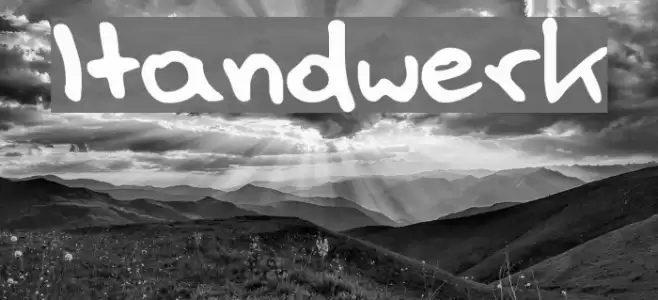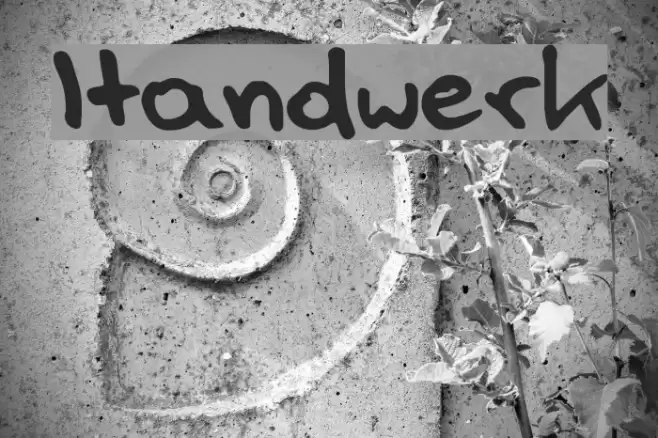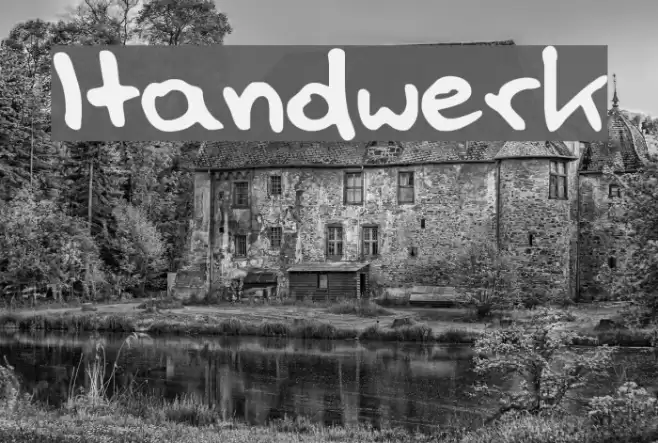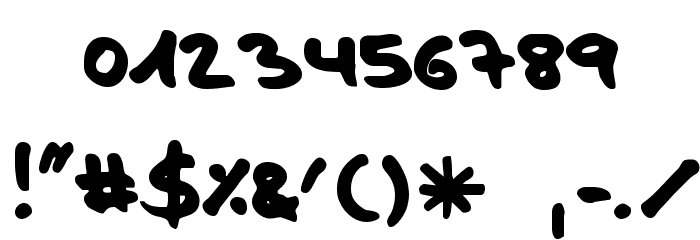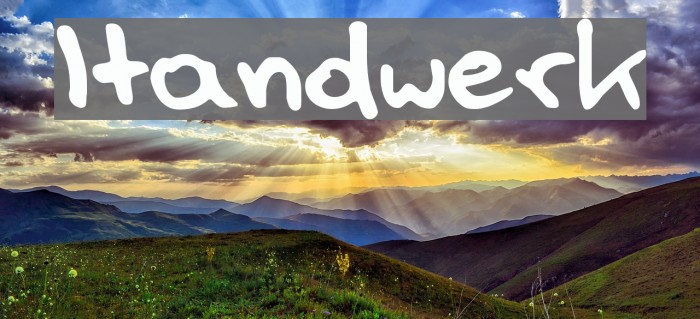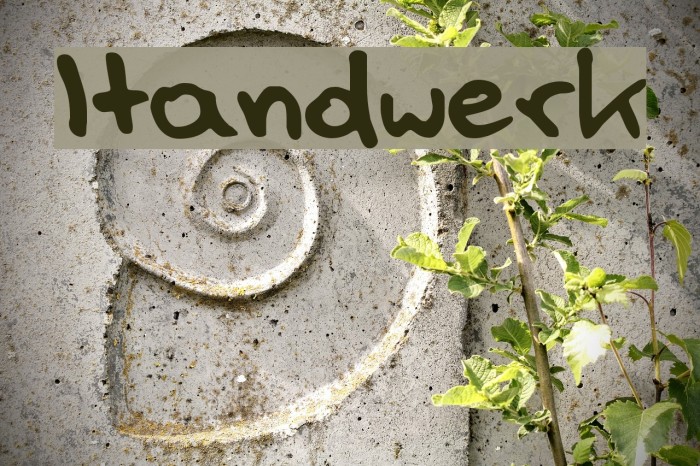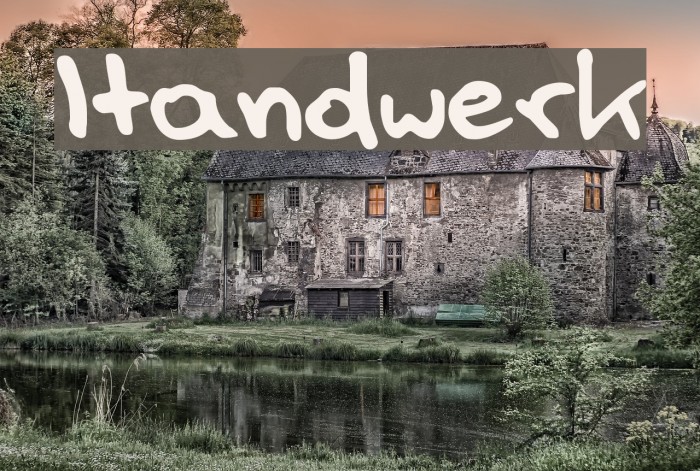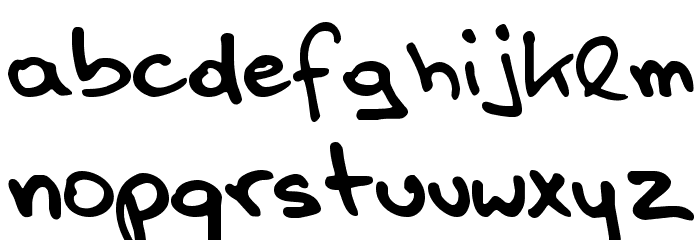
Handwerk Font
Handwerk Description
This font exhibits a playful and casual handwritten style, characterized by its bold and rounded strokes. The letters are slightly irregular, giving it a personal and informal touch. Uppercase and lowercase letters maintain a consistent flow, while numbers and special characters are designed to match the overall aesthetic. The font's organic feel makes it suitable for projects that require a human touch, such as personal branding or creative designs.
A playful, bold handwritten font with rounded strokes and an informal style from Handwritten fonts.
- Proposed Projects: Ideal for personal branding, creative projects, children's books, and casual invitations.
- Overall Style: Casual, Playful
- Use Case: Logos, Headlines, Invitations